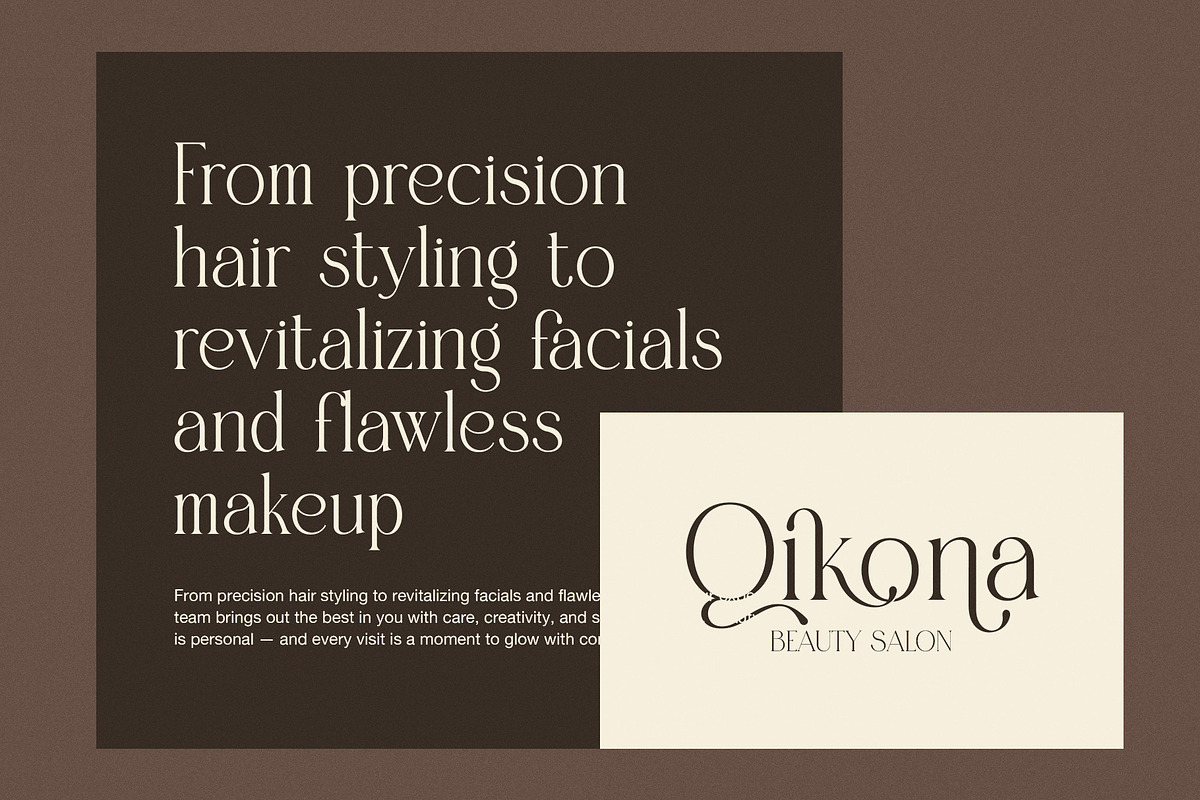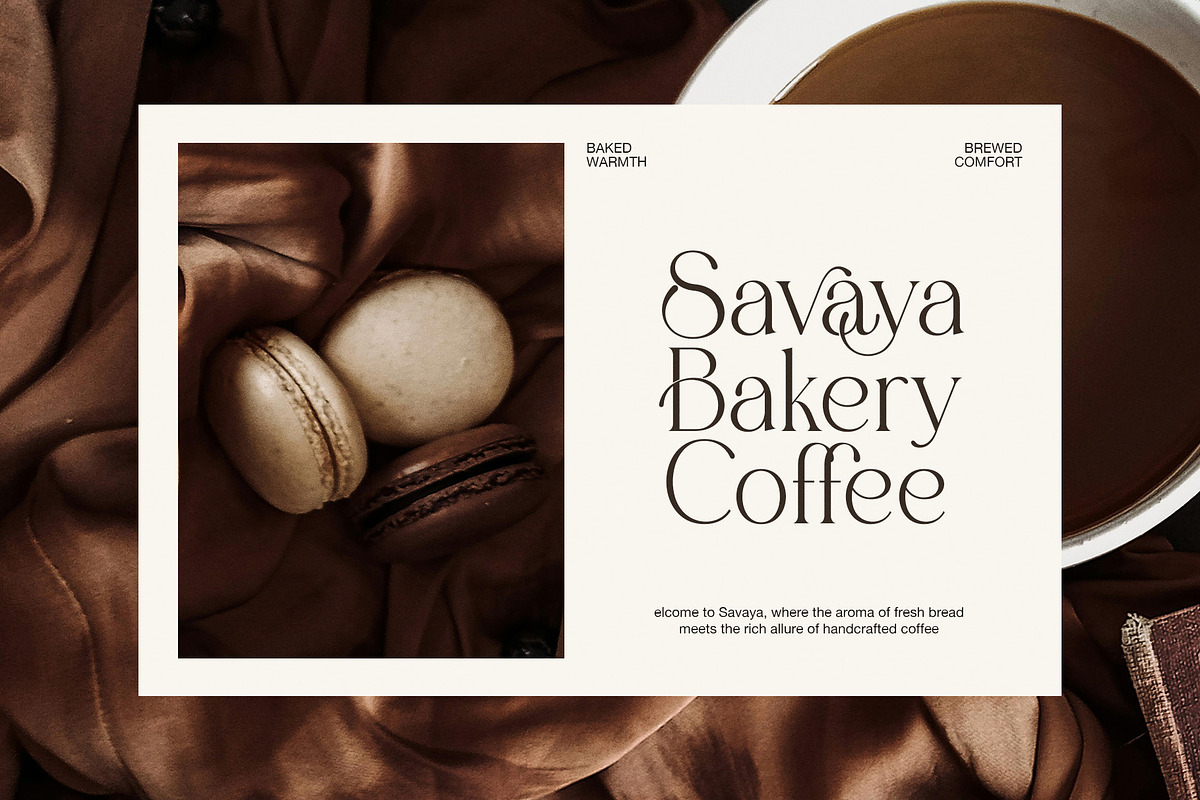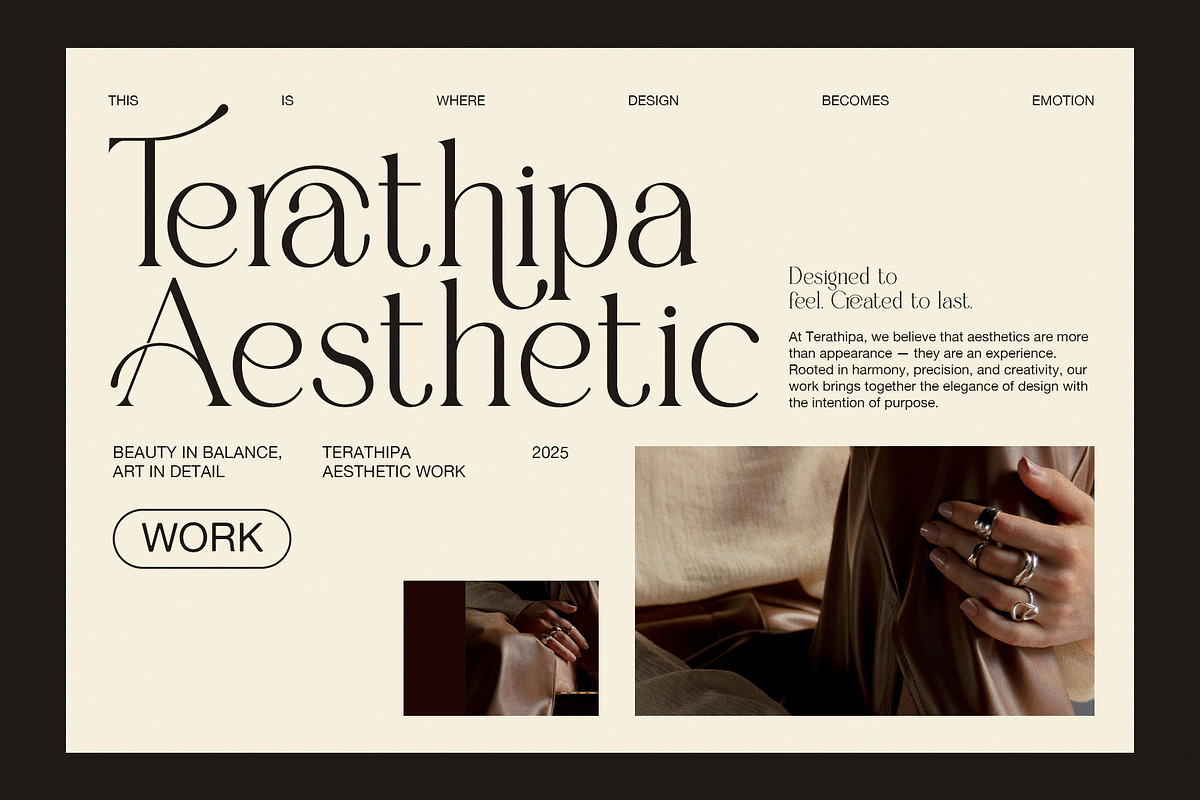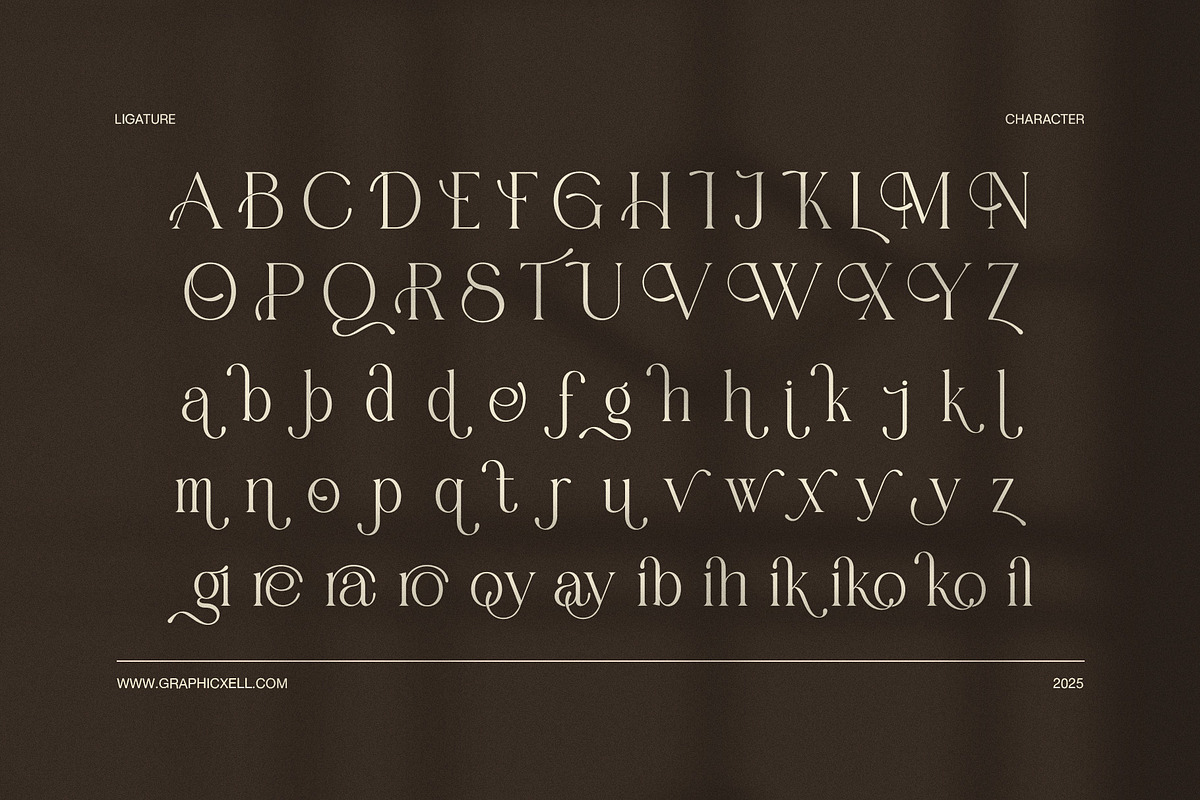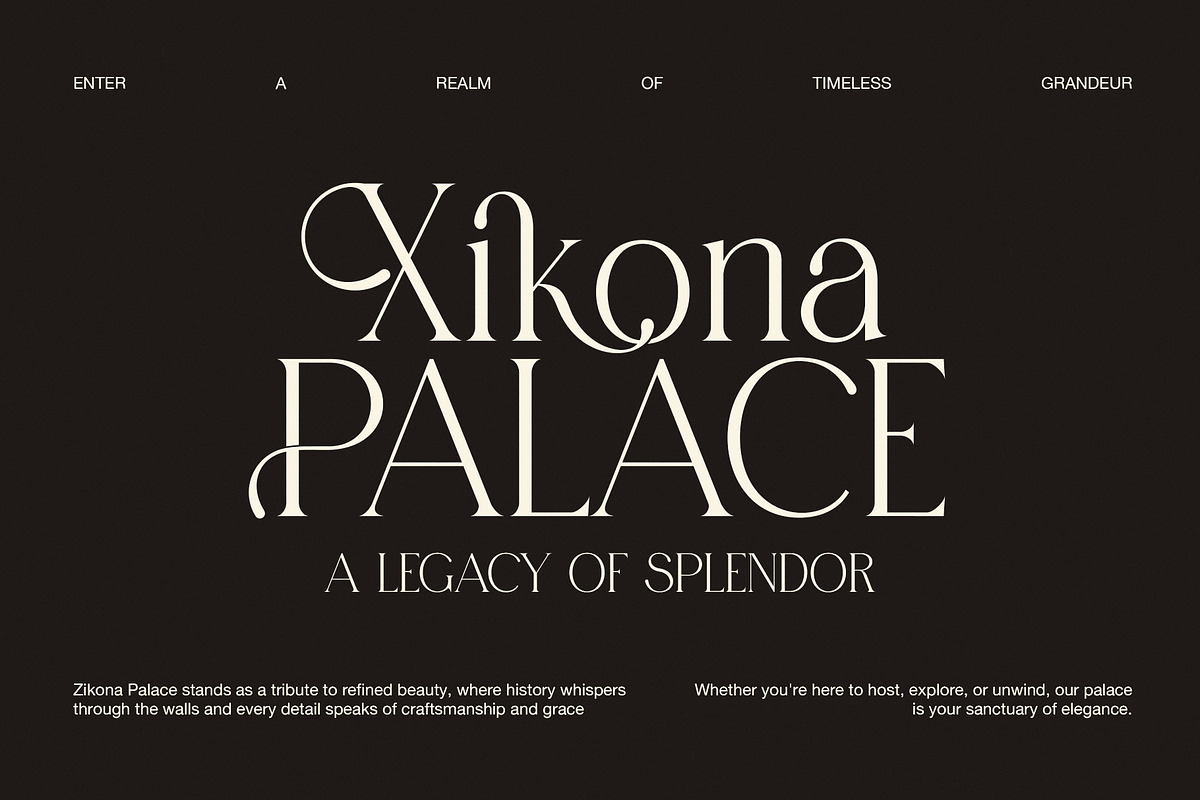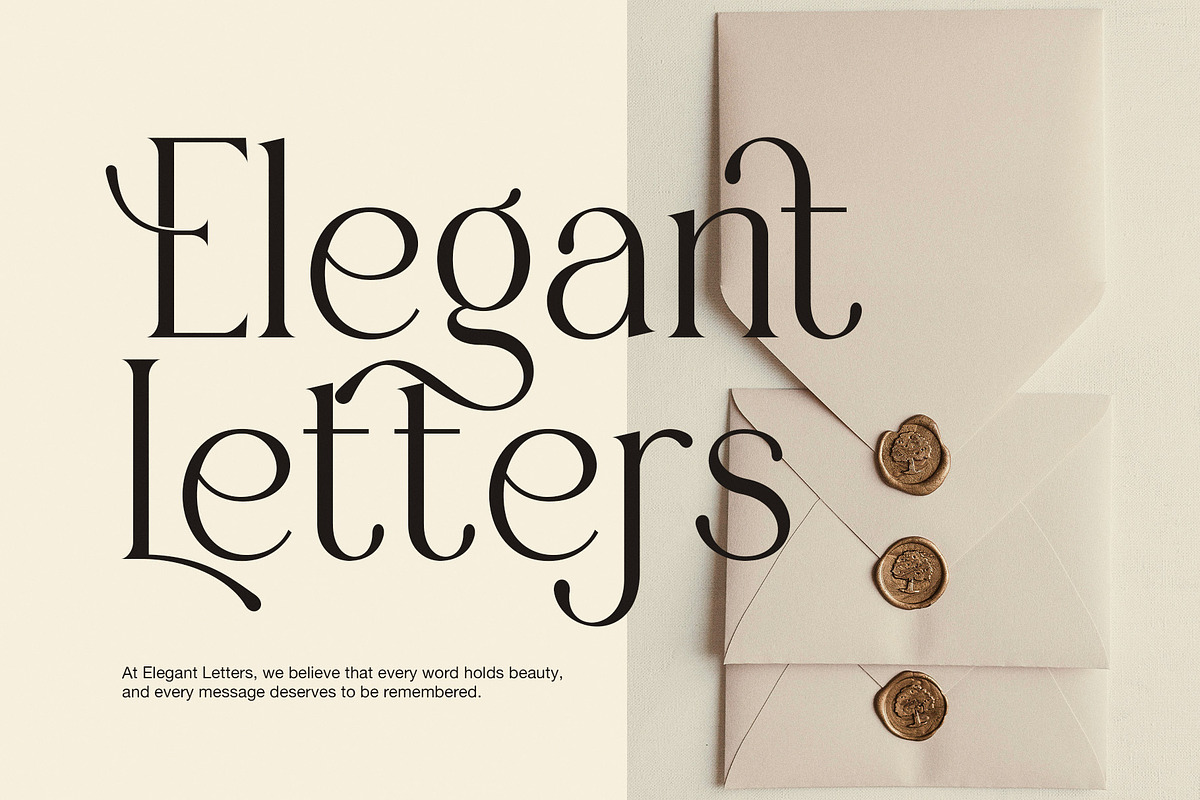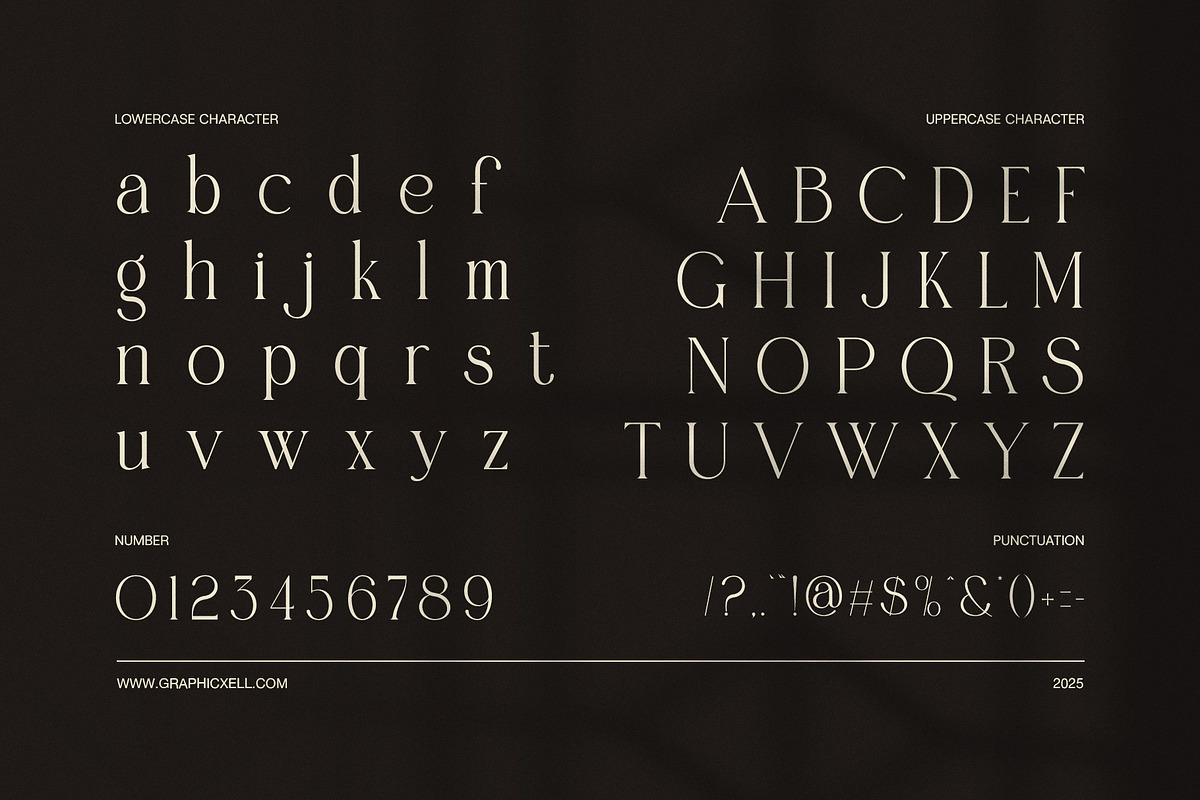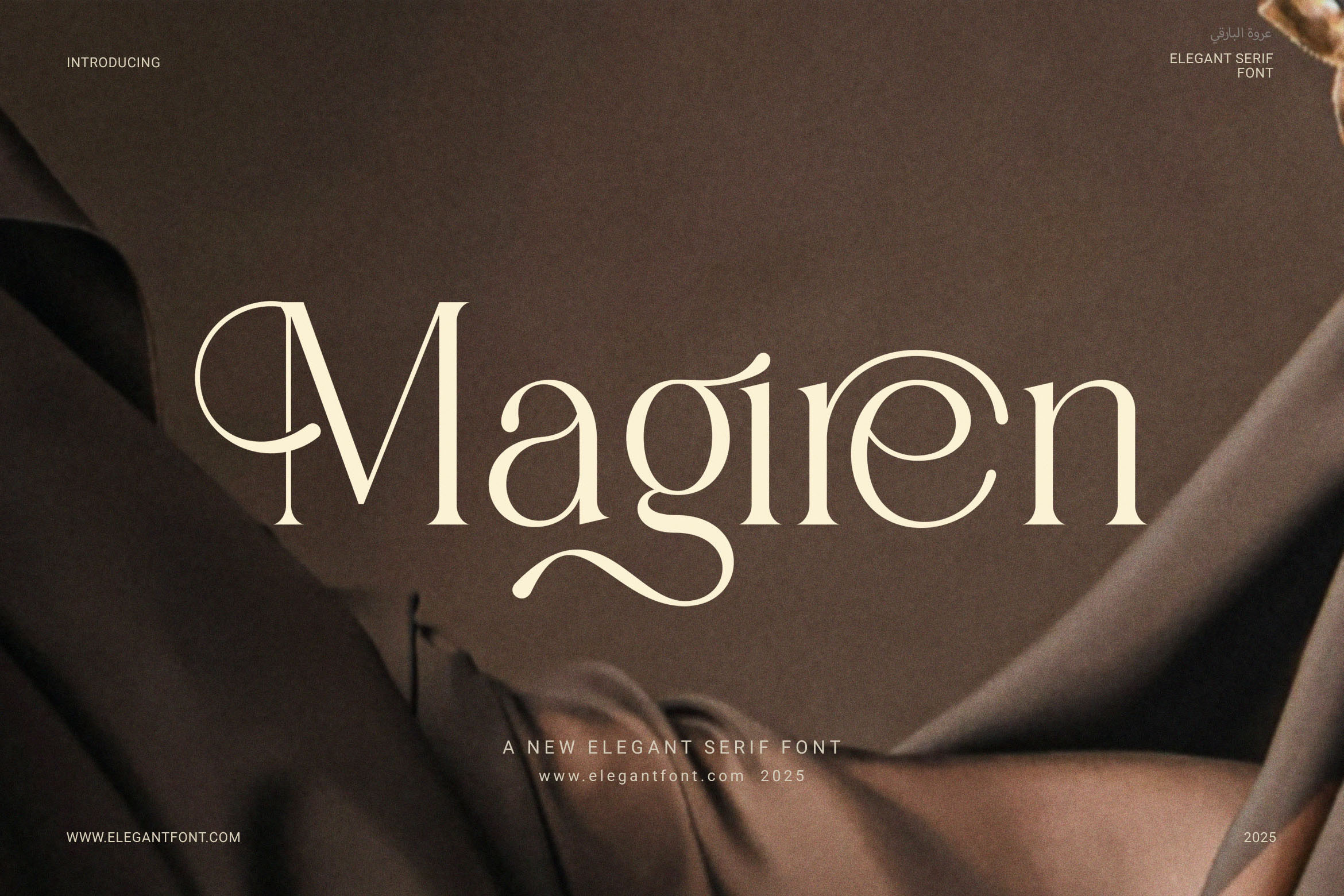
Magiren Elegant Serif Font
Magiren Elegant Serif Font is a stylish and modern typeface created to bring elegance and clarity to your designs. While it follows a classic serif structure, it introduces a fresh and contemporary touch that feels both refined and timeless. This makes it ideal for designers who want to build strong visual identities without losing sophistication.
Thanks to its balanced proportions and clean lines, Magiren is suitable for a wide range of creative uses. From branding and packaging to magazines and digital content, this font adapts beautifully to any layout. Moreover, it includes functional ligatures that add a natural, flowing character to your text. As a result, your designs will look more polished and visually appealing.
Whether you’re creating a logo, a website, or printed material, Magiren offers both style and readability. Its professional appearance makes it perfect for:
Modern logo design
Luxury product packaging
Editorial and magazine layouts
High-end fashion branding
Wedding invitations and event stationery
Chic restaurant or café branding
Websites and landing pages
Boutique advertising
Creative presentations and portfolios
In addition, Magiren supports OpenType features, making it highly usable in various software and across platforms. Because of its smooth appearance and versatility, this serif font easily becomes a go-to choice for design professionals and business owners alike.
To sum up, Magiren blends elegance with function, offering a versatile font that works across industries. If you're aiming for a clean, high-end look that captures attention, this font is the perfect match.